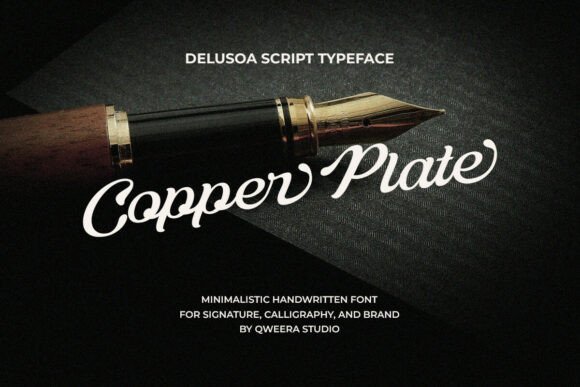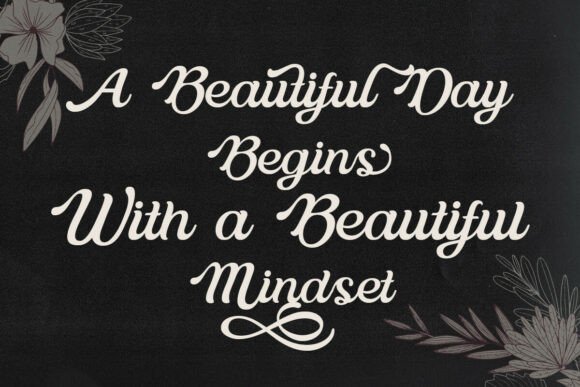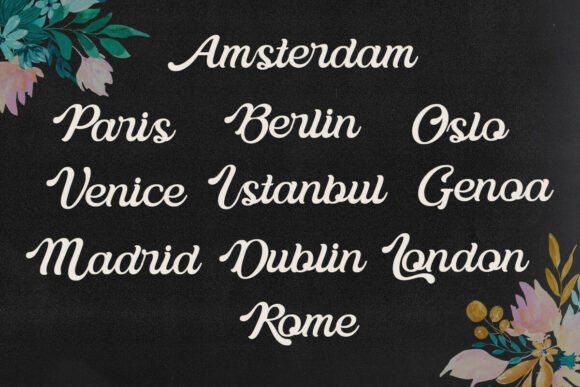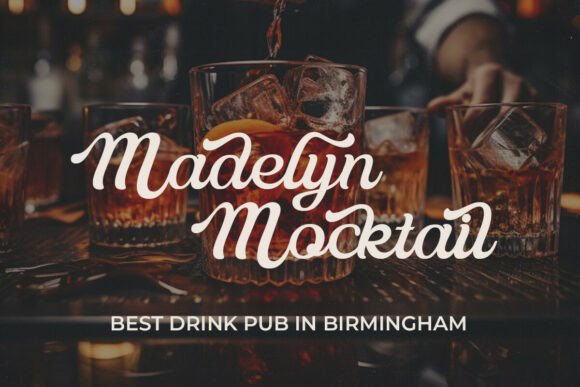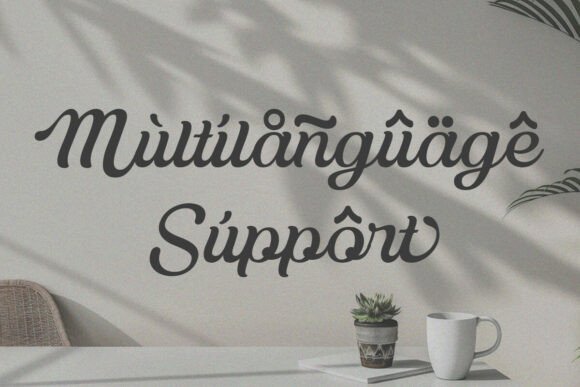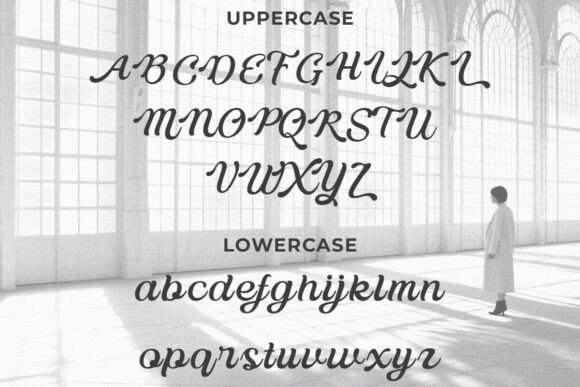
Introducing Delusoa Font: Elevate Your Designs with Minimalist Calligraphy
In the world of typography, a well-crafted font can make all the difference in elevating your designs from ordinary to extraordinary. For designers and crafters seeking a stylish and versatile font, Delusoa Font is an excellent choice. This minimalist calligraphy script font is designed to bring a refined and modern handwritten touch to your projects, making it perfect for a wide range of applications.
What is Delusoa Font?
Delusoa is a beautifully crafted minimalist calligraphy script font that exudes elegance and sophistication. With its smooth, flowing lines and carefully designed alternates and swashes, this font offers a high level of flexibility, allowing users to create stunning typography with ease. Whether you’re working on branding, posters, magazines, invitations, packaging, or print designs, Delusoa Font is the perfect choice for adding a touch of refinement and style.
Key Features of Delusoa Font
- Minimalist Calligraphy Script: Delusoa boasts a clean and minimalist design, making it perfect for modern and contemporary projects.
- Elegant Alternates and Swashes: The font features a range of elegant alternates and swashes, allowing users to add a touch of sophistication to their designs.
- PUA Encoding: With PUA encoding included, all special characters and decorative elements are easily accessible without additional software.
- Flexible and Versatile: Delusoa is designed to be flexible and versatile, making it suitable for a wide range of applications, from branding and posters to magazines and packaging.
Benefits of Using Delusoa Font
So, why choose Delusoa Font for your next project? Here are just a few benefits of using this stylish and versatile font:
- Elevate Your Designs: Delusoa Font adds a refined and modern handwritten touch to your projects, elevating them from ordinary to extraordinary.
- Easy to Use: With its PUA encoding and accessible special characters, Delusoa Font is easy to use, even for those without extensive design experience.
- Time-Saving: The font’s flexibility and versatility save you time and effort, as you can use it for a wide range of applications without needing to switch fonts.
- High-Quality Typography: Delusoa Font ensures high-quality typography, making your designs look professional and polished.
Who Can Benefit from Delusoa Font?
Delusoa Font is perfect for a variety of designers and crafters, including:
- Graphic Designers: Add a touch of elegance and sophistication to your branding, posters, and marketing materials.
- Stationery and Invitation Designers: Create beautiful and unique stationery, invitations, and greeting cards.
- Fashion Designers: Elevate your fashion brand with a stylish and modern font.
- Crafters and Small Business Owners: Add a professional touch to your packaging, labels, and marketing materials.
In conclusion, Delusoa Font is an excellent choice for designers and crafters seeking a stylish and versatile font. With its minimalist calligraphy script, elegant alternates and swashes, and PUA encoding, this font offers a high level of flexibility and ease of use. Whether you’re working on branding, posters, magazines, invitations, packaging, or print designs, Delusoa Font is the perfect choice for adding a refined and modern handwritten touch to your projects. Elevate your designs with Delusoa Font and experience the difference it can make.